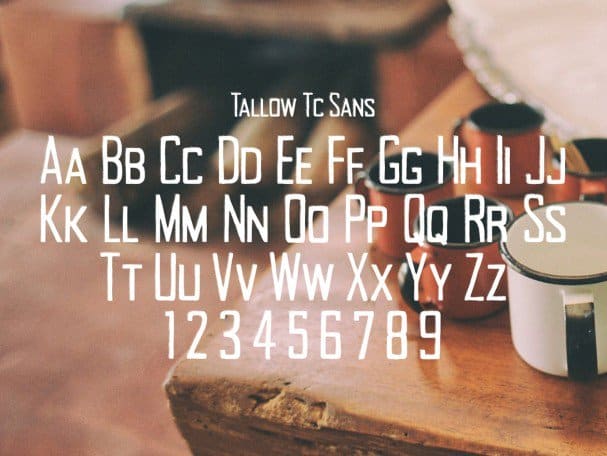
Tallow Font
Tallow Font is designed for paragraph text. It is commonly used in digital watches and is included in the CSS font family. You can also find it listed in Google Fonts.
The number one is a font this is created by using the usage of univers font. He took the idea from the beginning. This font is used for t-shirt printing and logo designing functions.
Style Of Tallow Font Free